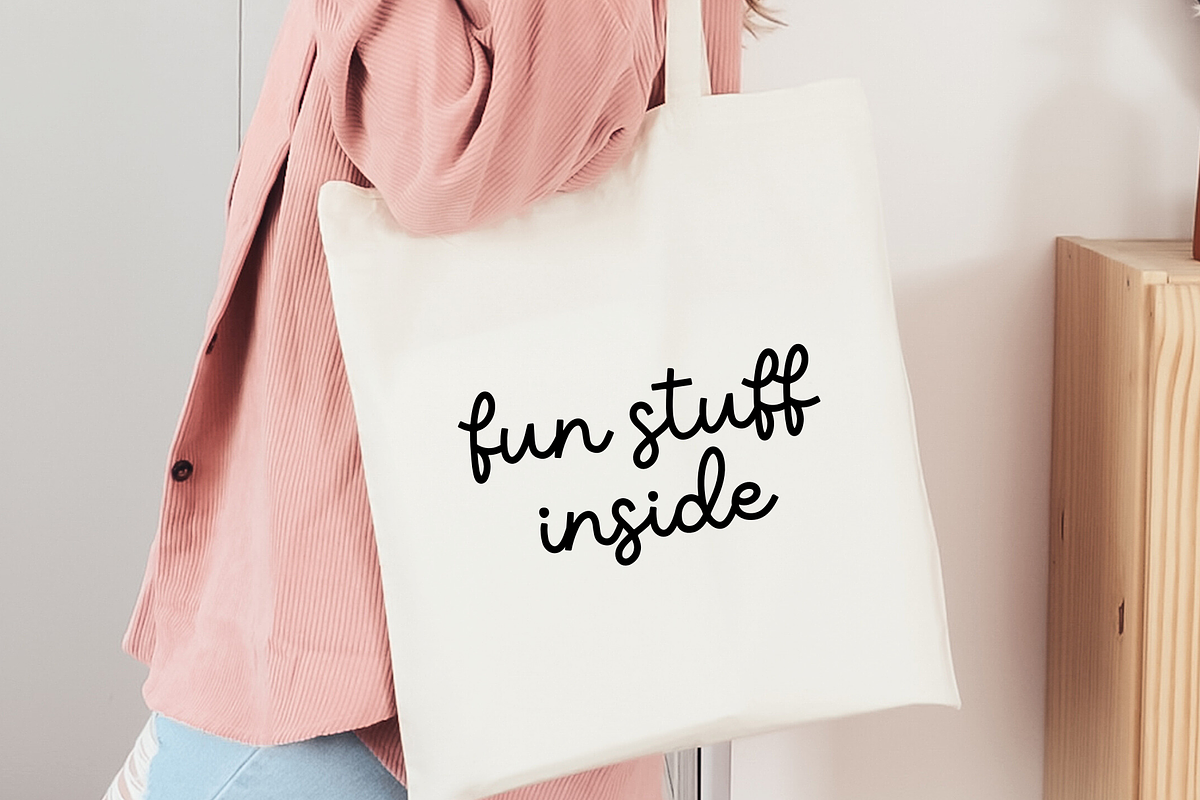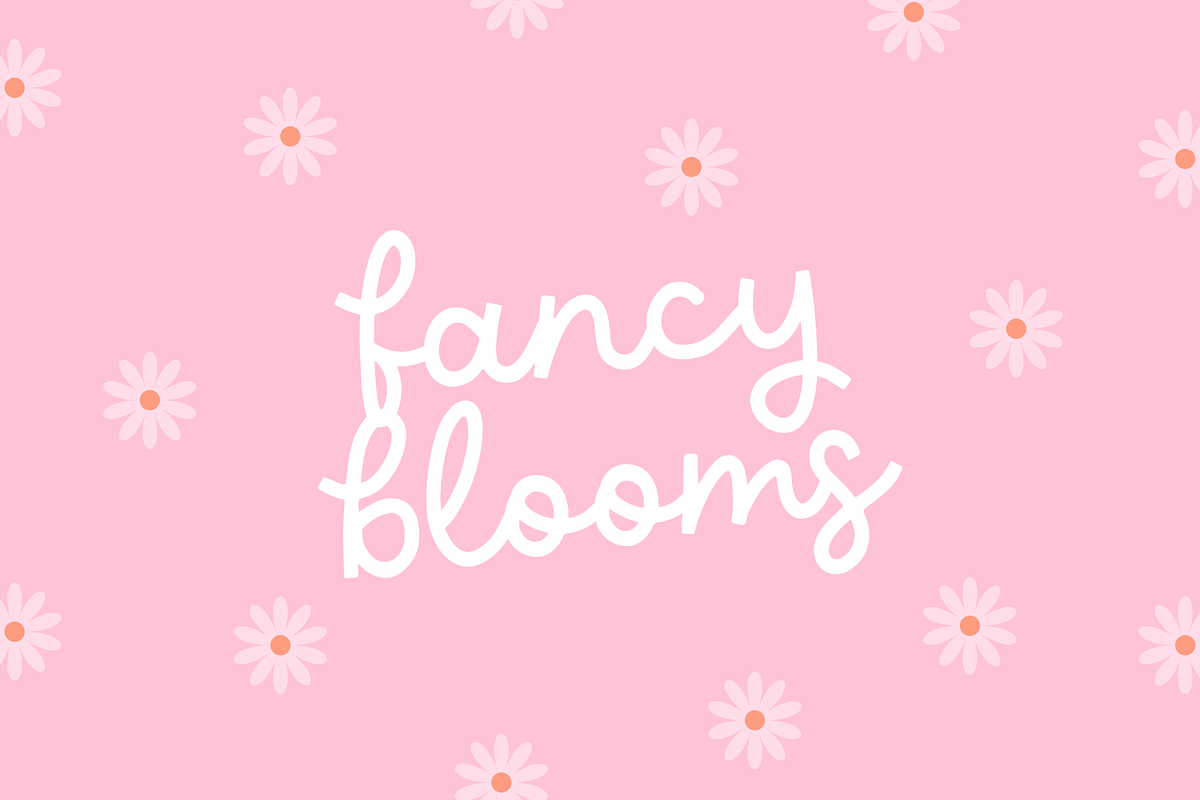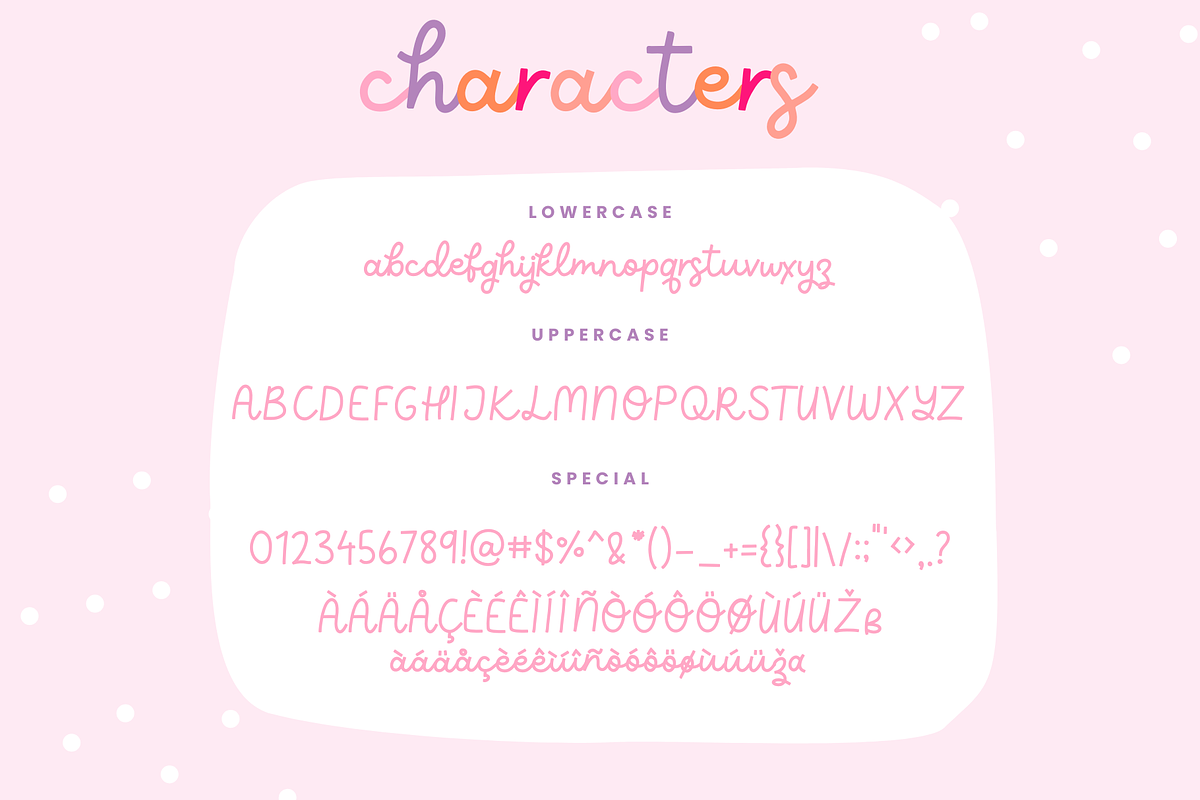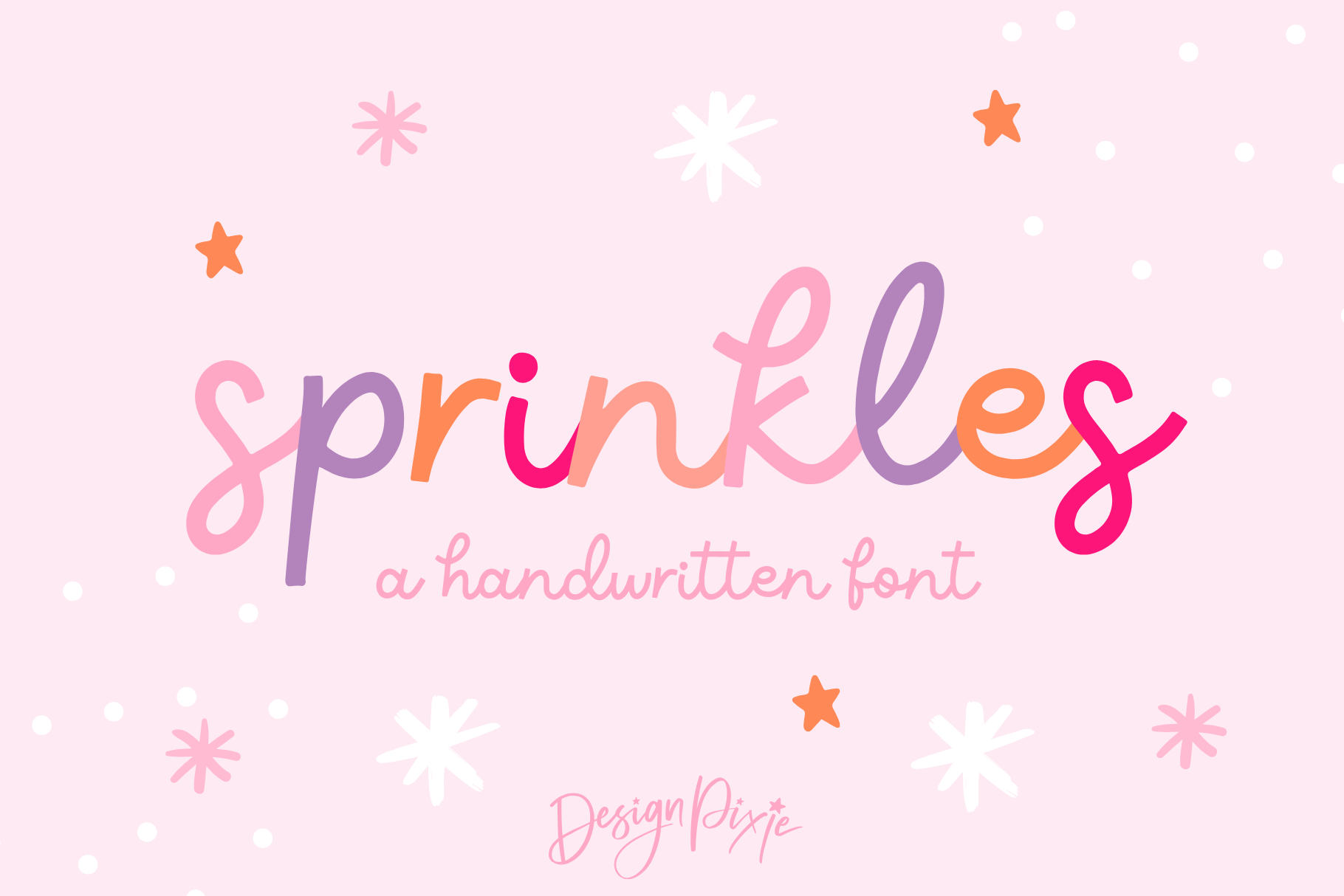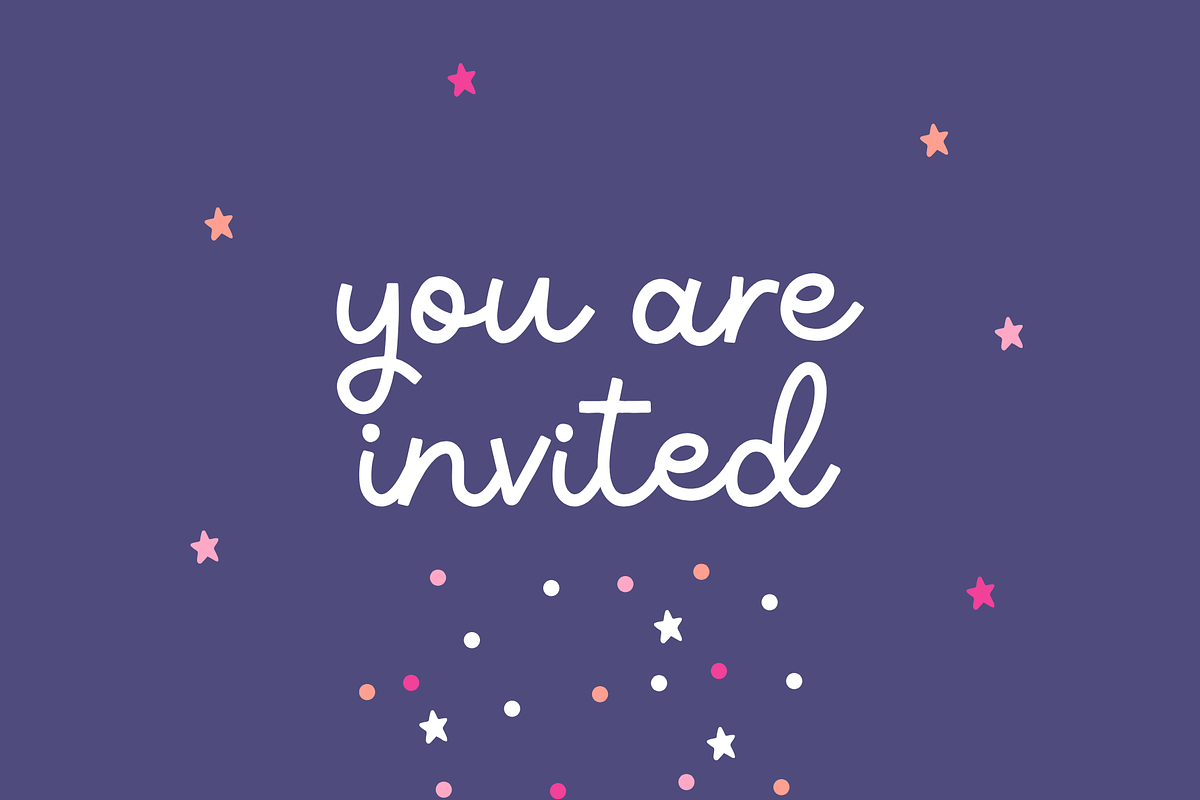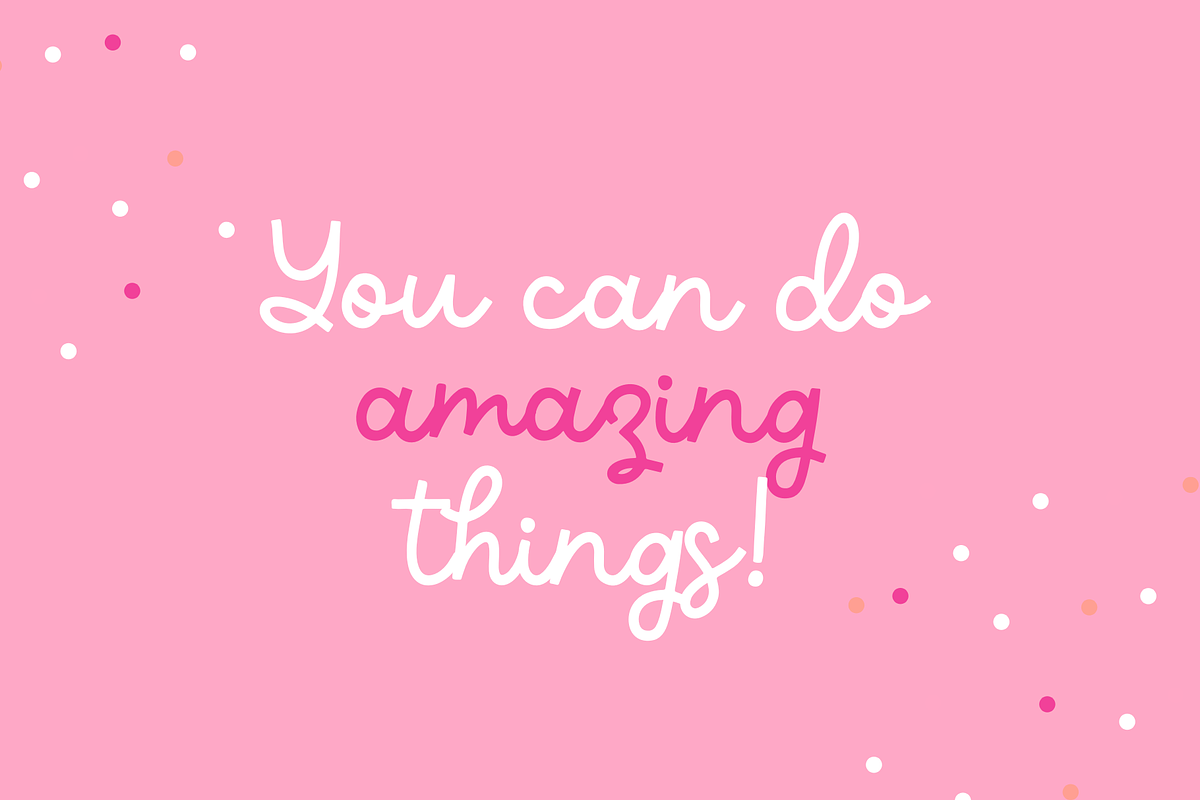
Sprinkles Font
Sprinkles is a handwritten monoline font by Design Pixie. A great addition to add to your collection, this cute font can be used for Cricut, Procreate, Goodnotes, iPad and more. It's a handwritten cursive font for crafty work, lettering quotes, logos and more.